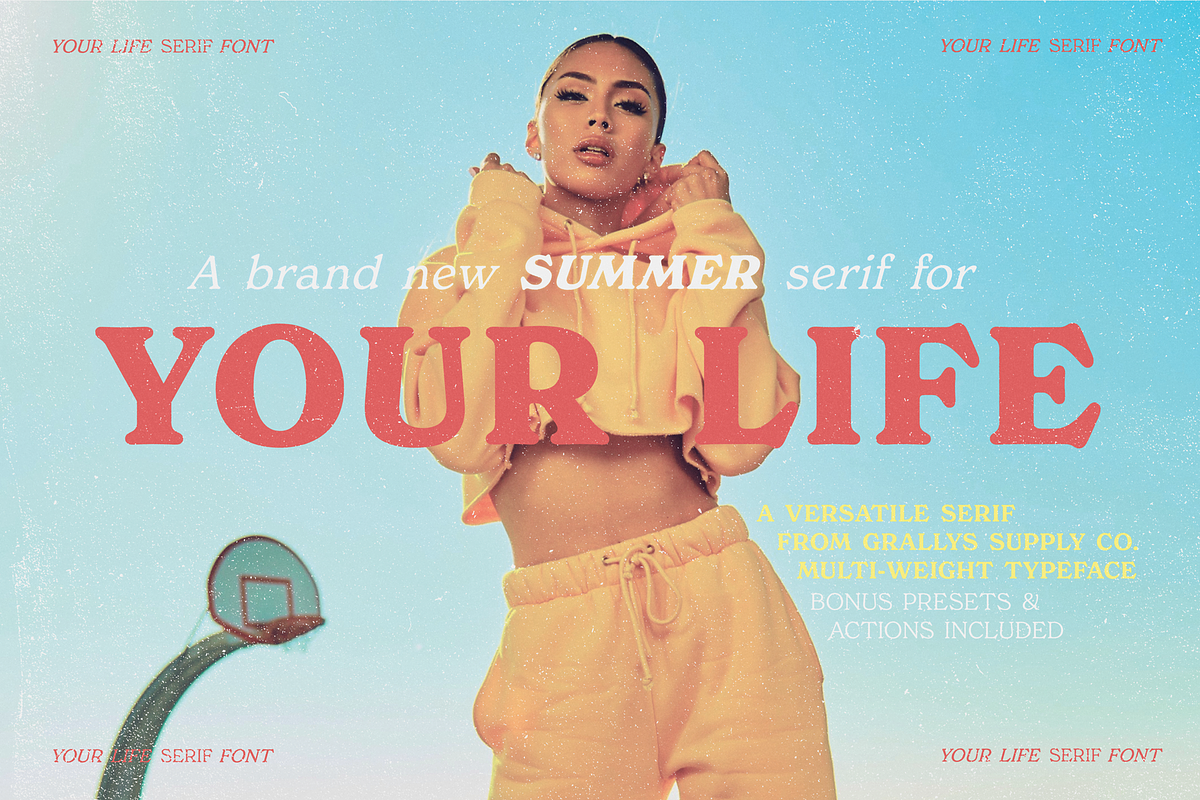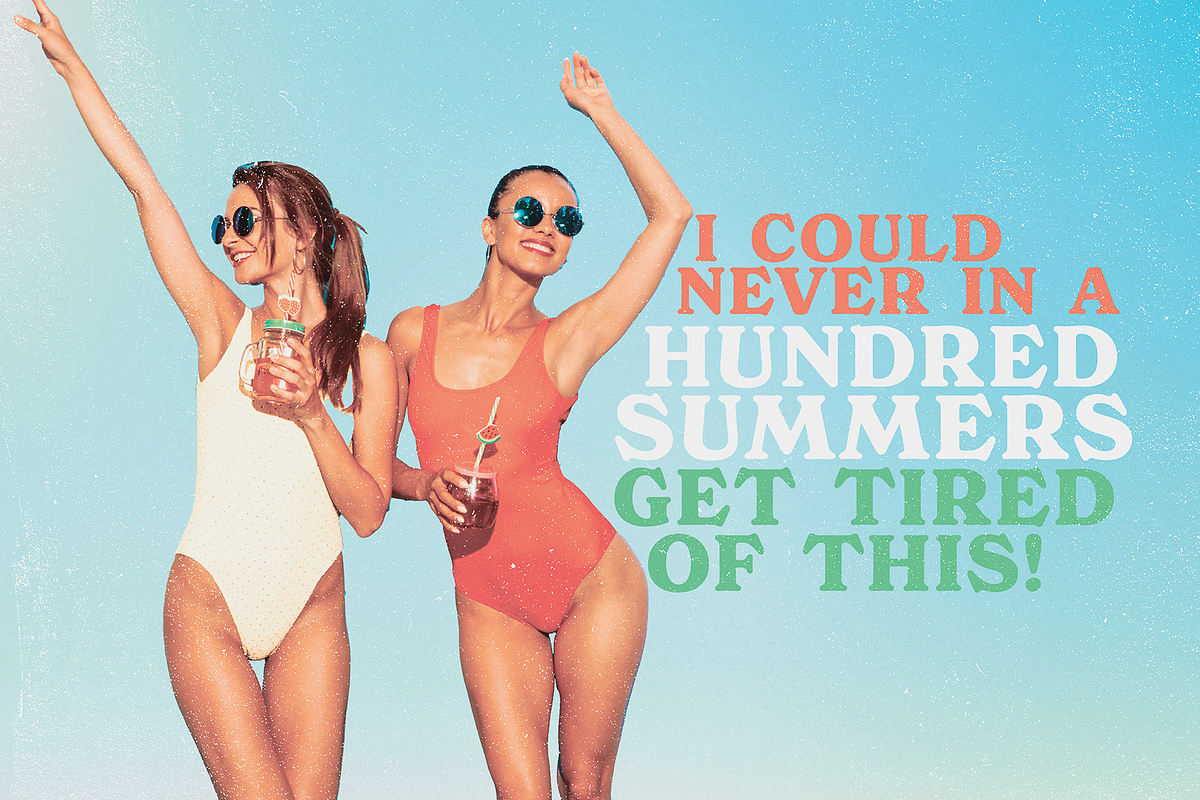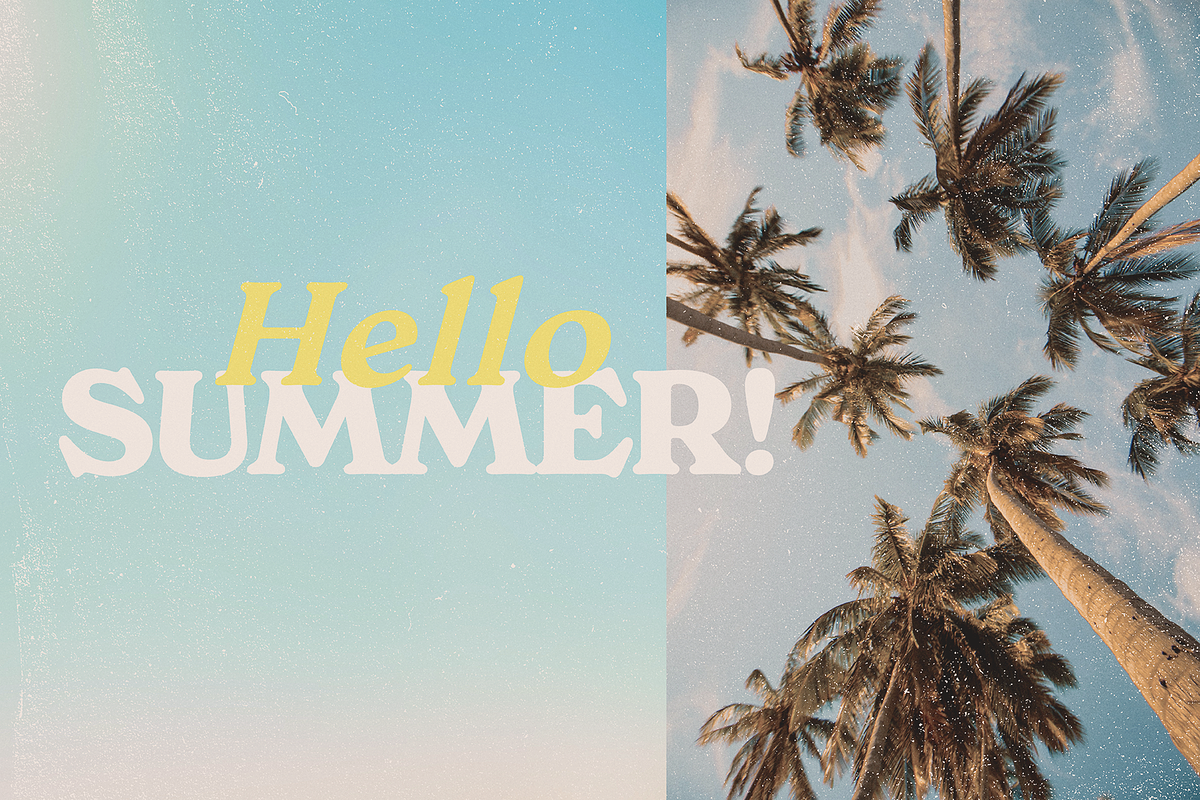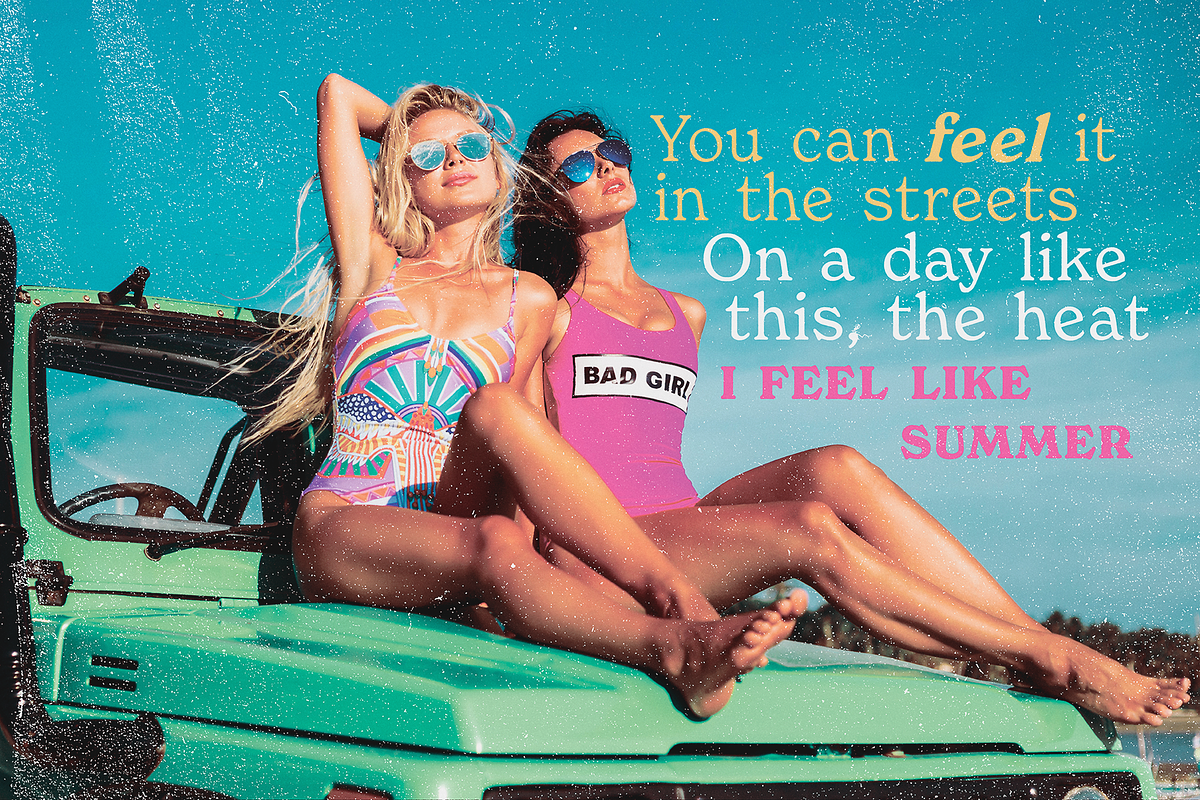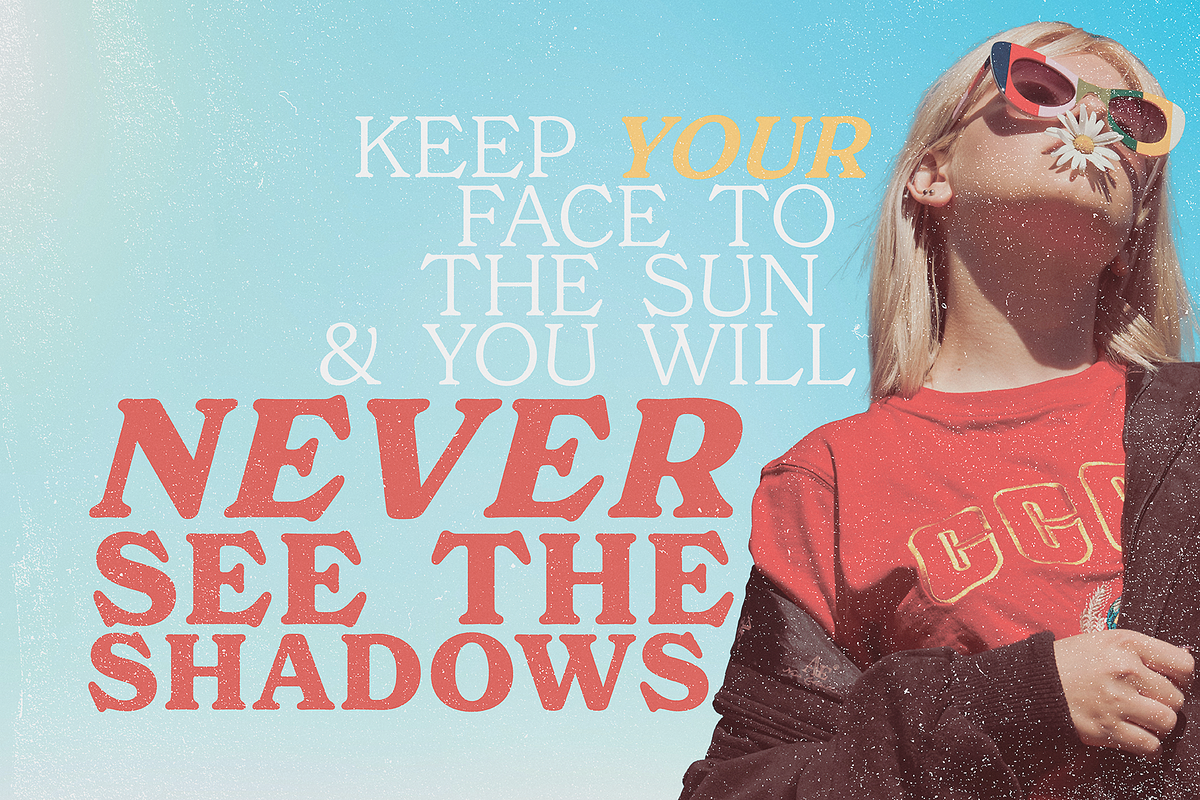
Your Life Serif
Your Life is an elegant retro style serif font family with a summer twist. This collection will instantly add style to all of your design projects and as a bonus, you will receive 3 retro summer Photoshop actions.
This stylish font family is timeless and can not be missed in your font collection. It is the perfect summer branding font!